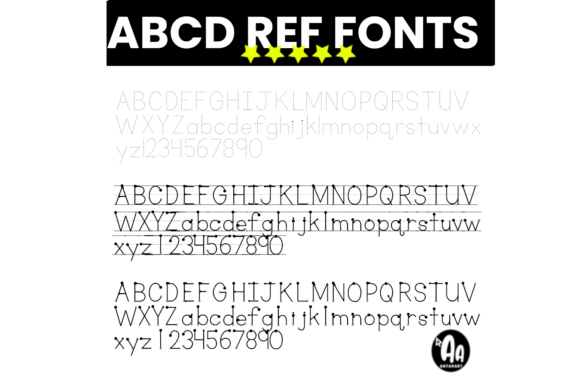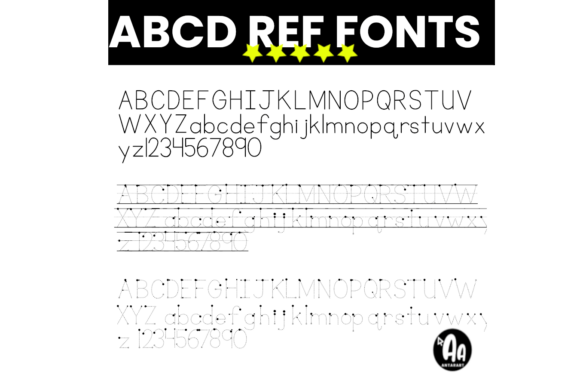
Introducing the ABCD Ref Alphabet Tracing Pack Font: A Comprehensive Handwriting Tool
Are you a teacher, educator, or parent looking for an engaging and effective way to help your students or child develop strong handwriting skills and master the alphabet? Look no further than the ABCD Ref Alphabet Tracing Pack Font! This installable font is specifically designed to support early writing, letter recognition, and pre-writing readiness, making it an ideal tool for PreK (preschoolers) and kindergarten students.
What is the ABCD Ref Alphabet Tracing Pack Font?
This innovative font pack includes 6 unique styles, each carefully crafted to provide a fun and interactive way for students to learn and practice the alphabet. The pack includes:
• 1 regular font
• 2 dotted fonts
• 3 lined dotted fonts with beginning guided dots
• 4 unlined dotted fonts with beginning guided dots
• 5 lined fonts with beginning dots
• 6 unlined fonts with beginning dots
Each font style is designed to cater to different learning needs and preferences, allowing you to create customized tracing worksheets, alphabet practice sheets, classroom resources, handwriting books, alphabet lessons, and more.
Benefits of the ABCD Ref Alphabet Tracing Pack Font
This versatile font pack offers a range of benefits for students, teachers, and parents, including:
• Improved handwriting skills: The directional arrows and beginning dots guide students in forming letters correctly, helping to develop muscle memory and fine motor skills.
• Enhanced letter recognition: The tracing fonts support early writing and letter recognition, making it easier for students to learn and remember the alphabet.
• Increased confidence: By providing a fun and interactive way to practice handwriting, the ABCD Ref Alphabet Tracing Pack Font helps to build confidence in letter formation and overall handwriting abilities.
• Customization options: With 6 unique font styles to choose from, you can create a range of engaging and interactive resources that cater to different learning styles and needs.
Using the ABCD Ref Alphabet Tracing Pack Font
The possibilities for using this font pack are endless! Here are just a few ideas to get you started:
• Create customized tracing worksheets and alphabet practice sheets for students.
• Develop interactive classroom resources, such as handwriting books and alphabet lessons.
• Use the font pack to create engaging and educational activities for numbers writing practice and hands-on writing lessons.
• Perfect for PreK (preschoolers) and kindergarten students, the font pack is also suitable for older students who need extra support with handwriting and letter formation.
Why Choose the ABCD Ref Alphabet Tracing Pack Font?
By choosing the ABCD Ref Alphabet Tracing Pack Font, you can:
• Save time: With a range of pre-designed font styles to choose from, you can quickly and easily create engaging and interactive resources.
• Enhance learning: The font pack is specifically designed to support early writing, letter recognition, and pre-writing readiness, making it an effective tool for learning and development.
• Increase engagement: The fun and interactive nature of the font pack helps to keep students engaged and motivated, making learning more enjoyable and effective.
The ABCD Ref Alphabet Tracing Pack Font is an invaluable resource for teachers, educators, and parents looking to help students develop strong handwriting skills and master the alphabet. With its range of customizable font styles, interactive features, and engaging design, this font pack is perfect for PreK (preschoolers) and kindergarten students. Download the ABCD Ref Alphabet Tracing Pack Font today and start supporting early writing, letter recognition, and pre-writing readiness in a fun and interactive way!